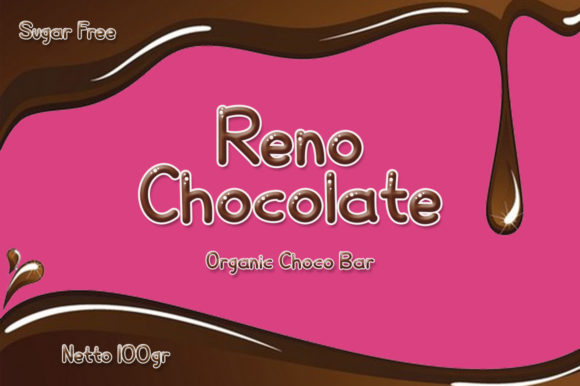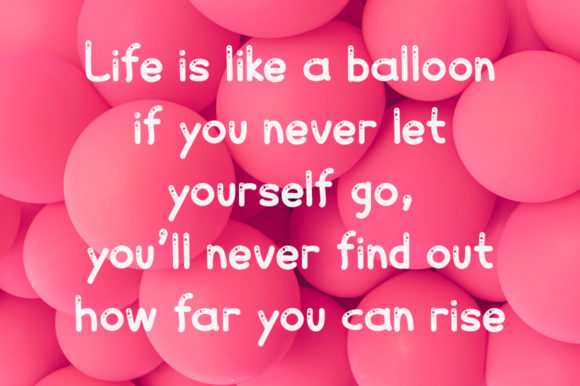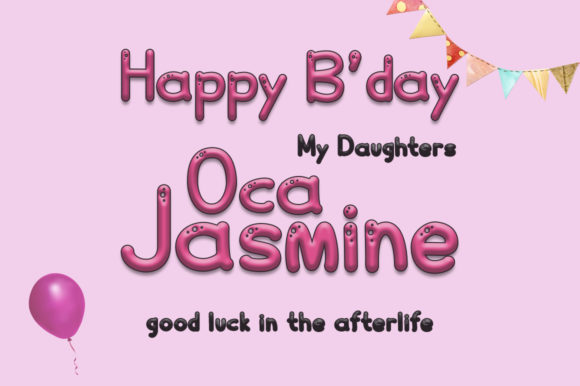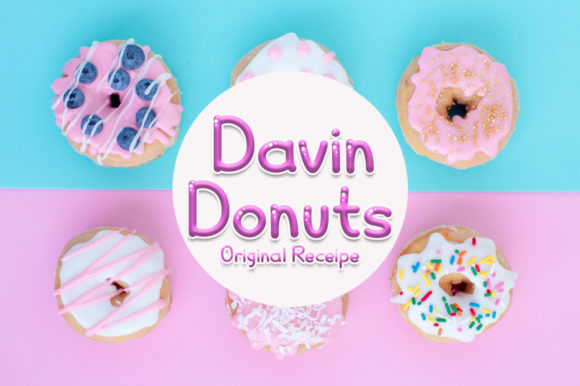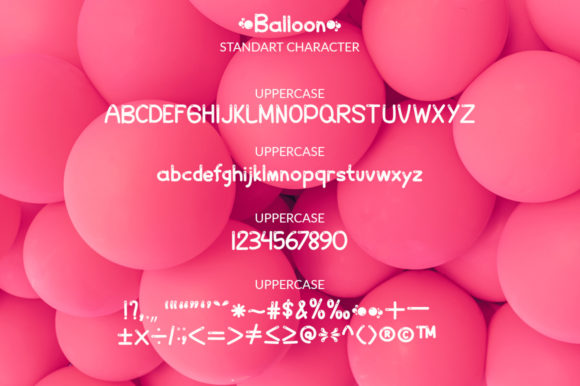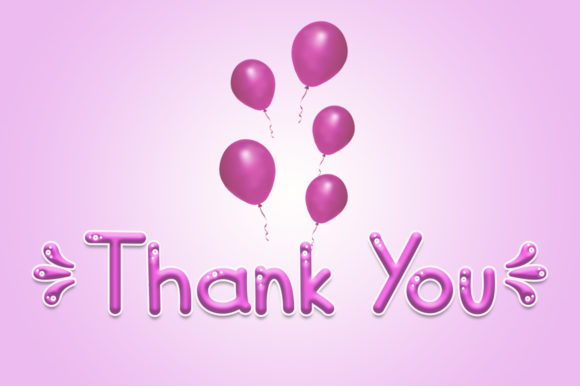
The Perfect Balloon to Add Whimsy to Your Designs
You know that moment when you stumble upon a font that just makes your creative heart skip a beat? For designers, it’s like discovering a hidden treasure that instantly elevates our projects to the next level. I had one of those moments when I came across the Balloon Font, a delightful display font that features adorable bubble and splash-themed characters.
The Balloon Font is more than just a pretty face – it’s a versatile tool that can add a touch of whimsy to packaging products, artwork, social media posts, and even greeting cards. With its authentic nuance and playful charm, this font is sure to inspire creativity and bring a smile to your audience’s faces.
Key Features of Balloon Font
- Font Family: Balloon is a sans-serif font family.
- Unique Characteristics: Balloon features a distinctive rounded shape, making it perfect for creating a friendly and approachable atmosphere in designs.
Designer Review: Balloon Font
Overall, I have mixed feelings about the Balloon Font. While it has some unique features that catch the eye, it also falls short in some areas. Let’s dive into what works well and what doesn’t.
What Works Well: ✨
- Playful and Whimsical Feel: The Balloon Font has a carefree and playful feel to it, making it perfect for designing children’s books, party invitations, and other fun projects.
- Customization Options: The font comes with a range of customization options, including size, color, and outline, giving designers the flexibility to experiment and create unique designs.
- Readability Issues: At larger font sizes, the Balloon Font can become difficult to read due to its ornate and irregular shape.
- Not Suitable for Formal Text: The font’s playful nature makes it unsuitable for formal text, such as business reports, academic papers, and other professional documents.
In conclusion, the Balloon Font is a fun and creative addition to any designer’s toolkit. While it may not be suitable for every project, it’s perfect for designers who want to add a touch of whimsy and playfulness to their designs.
The Balloon Font is commonly used for:
1. Party invitations and decorations.
2. Children’s birthday parties and events.
3. Social media graphics and posts.
4. Custom illustrations and graphics.
Alternatives to Balloon Font for Designers
Comic Sans MS is a sans-serif font designed to resemble handwriting. It is often used for informal or casual designs, such as children’s books, greeting cards, and website headers. While it has a similar playful feel to Balloon Font, Comic Sans MS is more widely available and has a more consistent appearance.
Pacifico is a modern script font designed to evoke a sense of elegance and sophistication. It is often used for luxury brands, weddings, and high-end designs. Unlike Balloon Font, Pacifico has a more refined and polished appearance, making it suitable for more formal designs.
Great Vibes is a modern script font designed to convey a sense of playfulness and energy. It is often used for creative designs, such as posters, advertisements, and social media graphics. While it has a similar energetic feel to Balloon Font, Great Vibes has a more modern and edgy appearance.
Yes, Balloon Font is optimized for use in digital environments, including digital signage and screen displays. It is available in various font file formats, including OTF, TTF, and WOFF, making it compatible with most digital signage software and platforms.
What font sizes and styles are available in Balloon Font?
Balloon Font is available in a range of font sizes and styles, including regular, bold, italic, and bold-italic. The font family includes 6 weights, from Light to Black, allowing for a high degree of customization and flexibility in your designs.